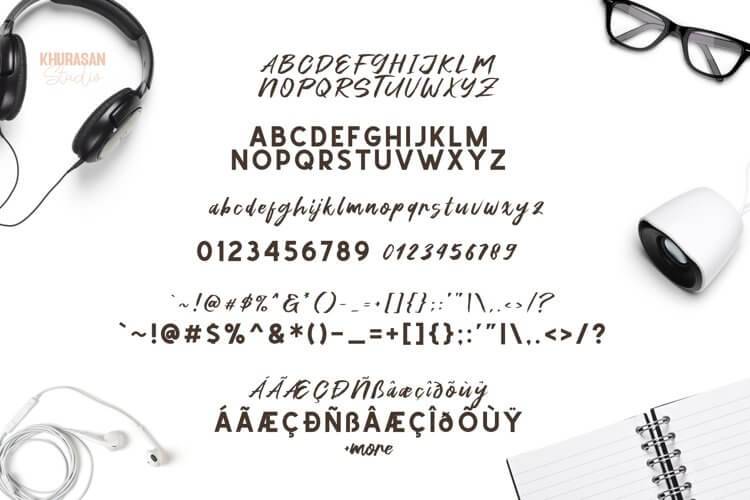
Green Fonte Font
Green Fonte Font Duo is a sans serif handwritten script font. For a funky design, the font is an excellent choice. Or, to put it another way, this is an excellent typeface for creating children’s designs. It also has a lovely and childish feel to it. You may easily change the texture from little to bold, depending on your needs. The font is designed and shared by albertino.
The font has already been utilized in a number of children’s playshops, and it is easily recognizable. Because the typeface has a few wonderful slopes, it can also be used as a sans serif font. There is a regular subfamily for this font. The typeface is available in two formats: TTF and OTF. Because it possesses all of the features that only a Script and Handwritten font should have, the beautiful Font is classified as a script and handwritten font. The great thing about this font is that you can make it any size you want and it looks great in both bold and skinny designs.
The font is primarily used on billboards for children’s playshops. You can also use it for packaging children’s toys. It has a catchy vibe that the kid will undoubtedly enjoy. The font might also work well on wallpapers with a natural background. It appears in practically every colour. This typeface can also be used in logos when a wacky and playful vibe is desired. The typeface is definitely set to a quirky style.